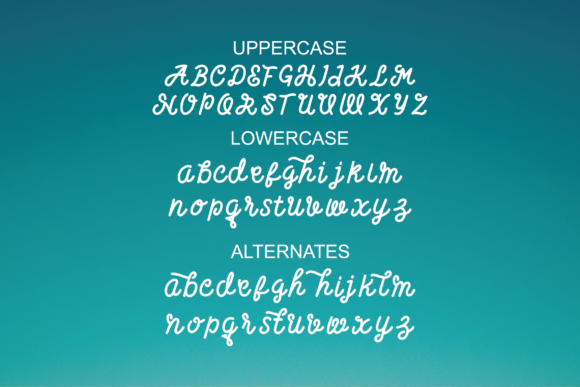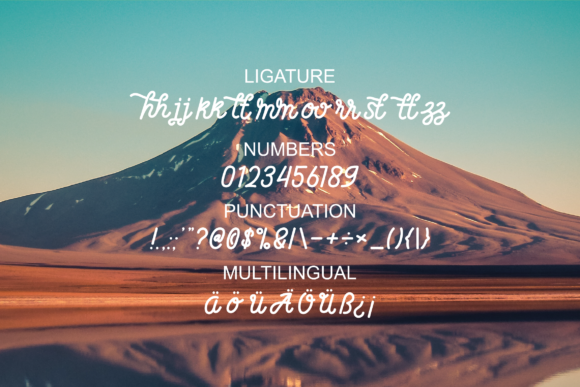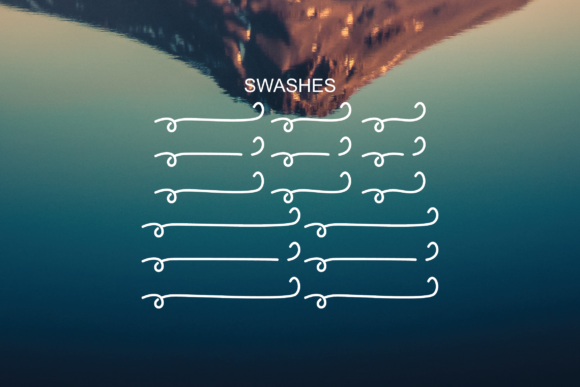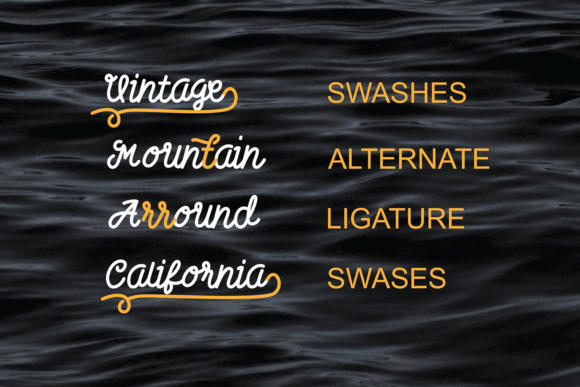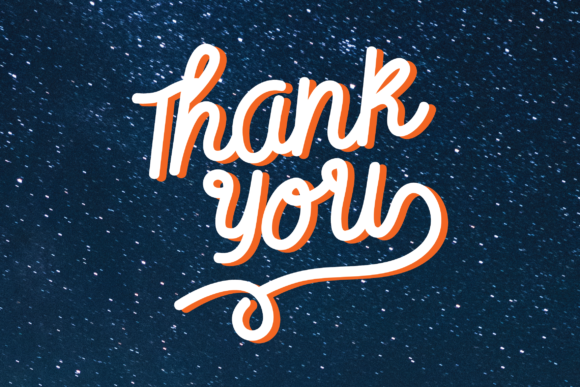
The Bhatara Font: A Vintage Script for Your Creative Projects
Have you ever been in the middle of a design project, and suddenly, you just can’t seem to find the right font? I recall a particularly frustrating experience while working on a vintage-themed label design for a craft fair. My client wanted a font that screamed ‘traditional’ but with a modern twist. After hours of scouring through font libraries, I stumbled upon the Bhatara font. It was love at first sight! 💕
The Bhatara font is a beautiful, soft script font designed with love for traditional sign paintings. Its vintage style, crafted with a personal touch, instantly gave my project the aesthetic I was looking for. In this article, I’ll share my experience with the Bhatara font, its features, and how you can make the most of it in your creative projects.
An Honest Review of Bhatara Font
What I Love About Bhatara Font ✨
- ✅ Soft and elegant script style perfect for vintage-themed designs
- ✅ Includes a range of vintage styles for a natural look
- ✅ Sleek version available for a modern twist
- ✅ Easily pairs with other fonts for a cohesive look
- ✅ Ideal for traditional typography, labels, package designs, and more
While the Bhatara font is incredibly versatile, there are a few things to keep in mind:
- 🤔 Limited character set compared to some other script fonts
- ⚠️ May not be suitable for very small font sizes due to intricate details
The Story Behind Bhatara Font
The Bhatara font was designed with a passion for traditional sign paintings and a love for vintage aesthetics. The creator aimed to craft a font that would evoke a sense of nostalgia and warmth, while still being modern and versatile. The result is a beautiful script font that can add a touch of elegance to any design project.
Q: What is the Bhatara font best used for?
A: The Bhatara font is ideal for traditional typography, labels, package designs, letters for t-shirts, and many other logos that require a vintage or elegant look.
Q: Is the Bhatara font suitable for body text?
A: While the Bhatara font is beautiful, it’s best used for headings and titles due to its script style and intricate details. For body text, a clearer font may be more suitable.
Q: Is the Bhatara font available in different styles?
A: Yes, the Bhatara font comes in a range of vintage styles, including a sleek version, allowing you to choose the perfect look for your design project.